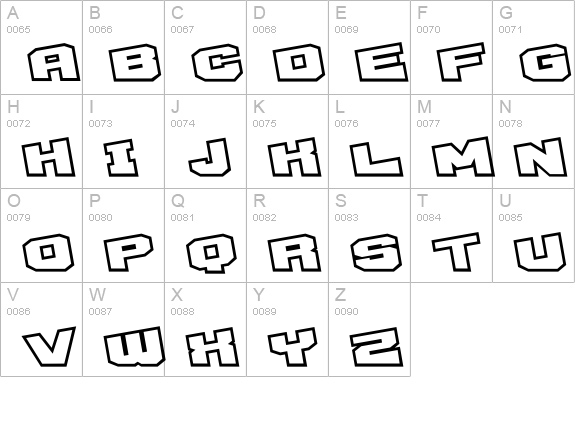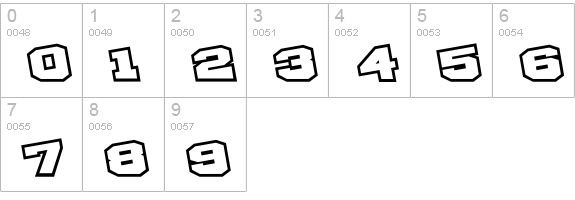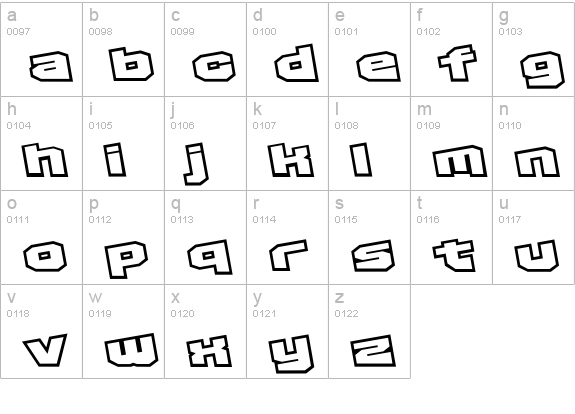
D3 Egoistism outline extra Font Details
Introducing the remarkable D3 Egoistism Outline Extra Font, a true masterpiece in the world of typography. Crafted with meticulous attention to detail, this font exudes elegance and sophistication like no other. With its unique outline design, D3 Egoistism Outline Extra Font stands out from the crowd, making a bold statement in any project. Its sleek and modern contours give a sense of confidence and individuality, making it the perfect choice for those who dare to be different. But what truly sets D3 Egoistism Outline Extra Font apart from the rest is its versatility. Whether you're designing a logo, creating stunning headlines, or crafting eye-catching posters, this font has the ability to elevate your work to new heights. And the best part? D3 Egoistism Outline Extra Font is available for free! That's right, you can download this extraordinary font without spending a dime. Simply head over to FontsMarket.com and unlock the power of this extraordinary typeface. So why wait? Embrace your inner egoist and unleash your creativity with D3 Egoistism Outline Extra Font. With its stunning design and free availability, there's no reason not to make this font a part of your design arsenal. Download now and let your imagination run wild.